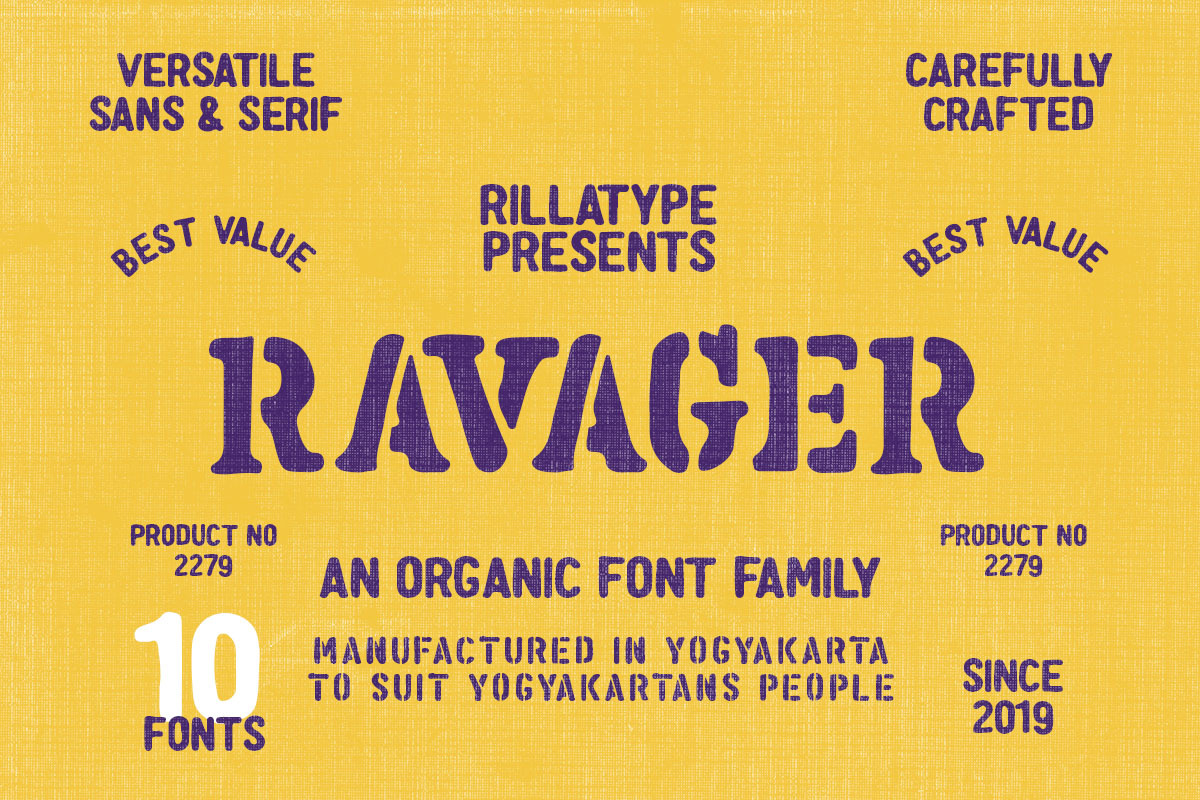
Ravager - Organic Typeface Family
Ravager is an organic typeface that consist of 10 fonts that you can choose. With Sans and Serif combo to make your project more stand out! Suitable for branding logo, hand lettering, or apparel design. this font also support multilingual.